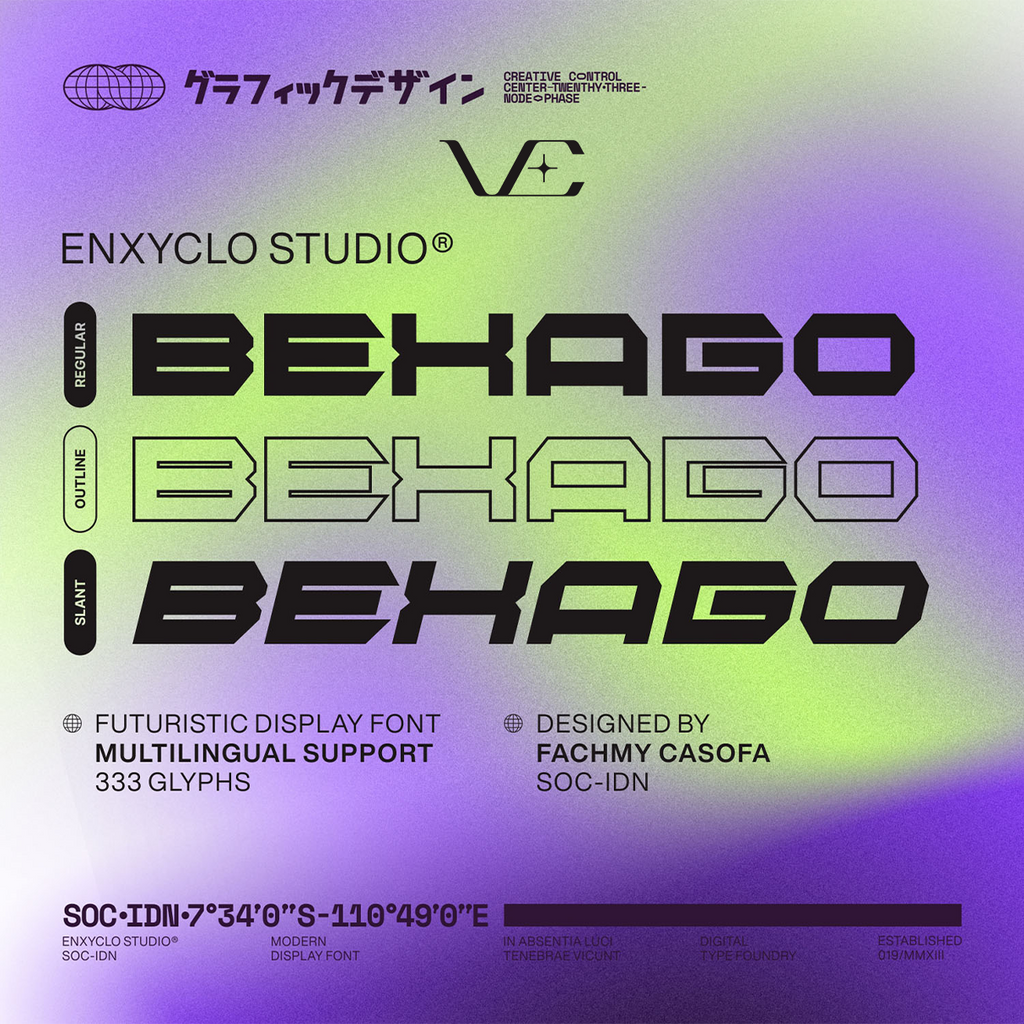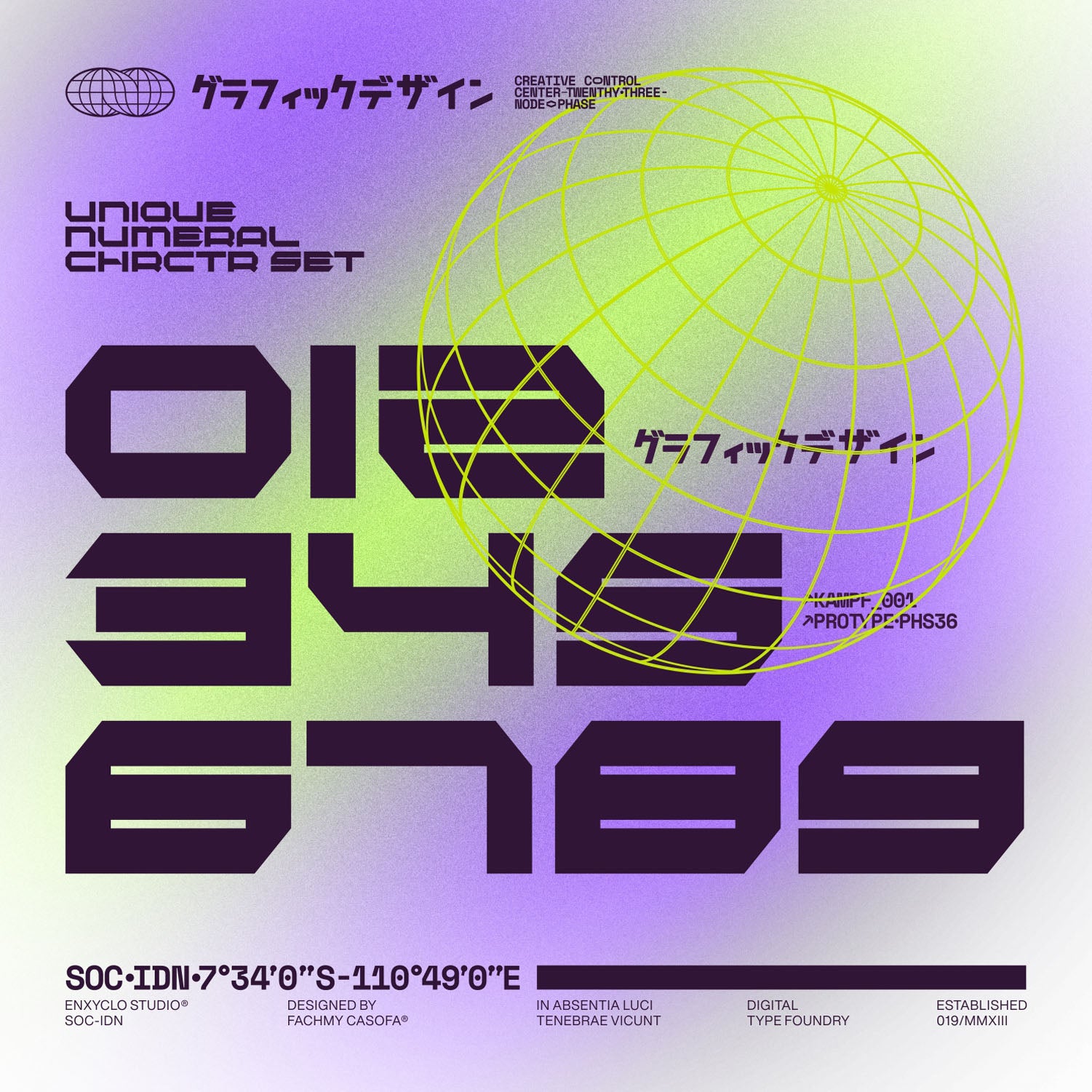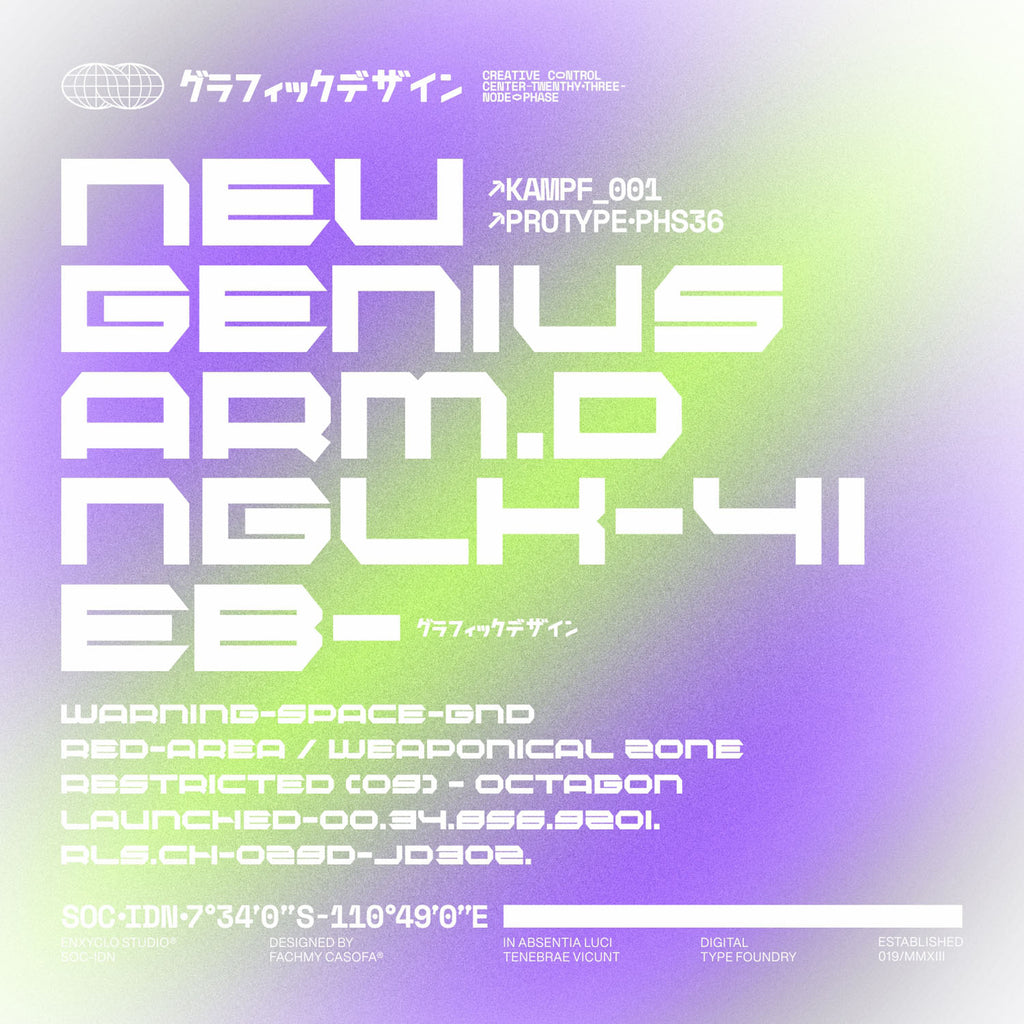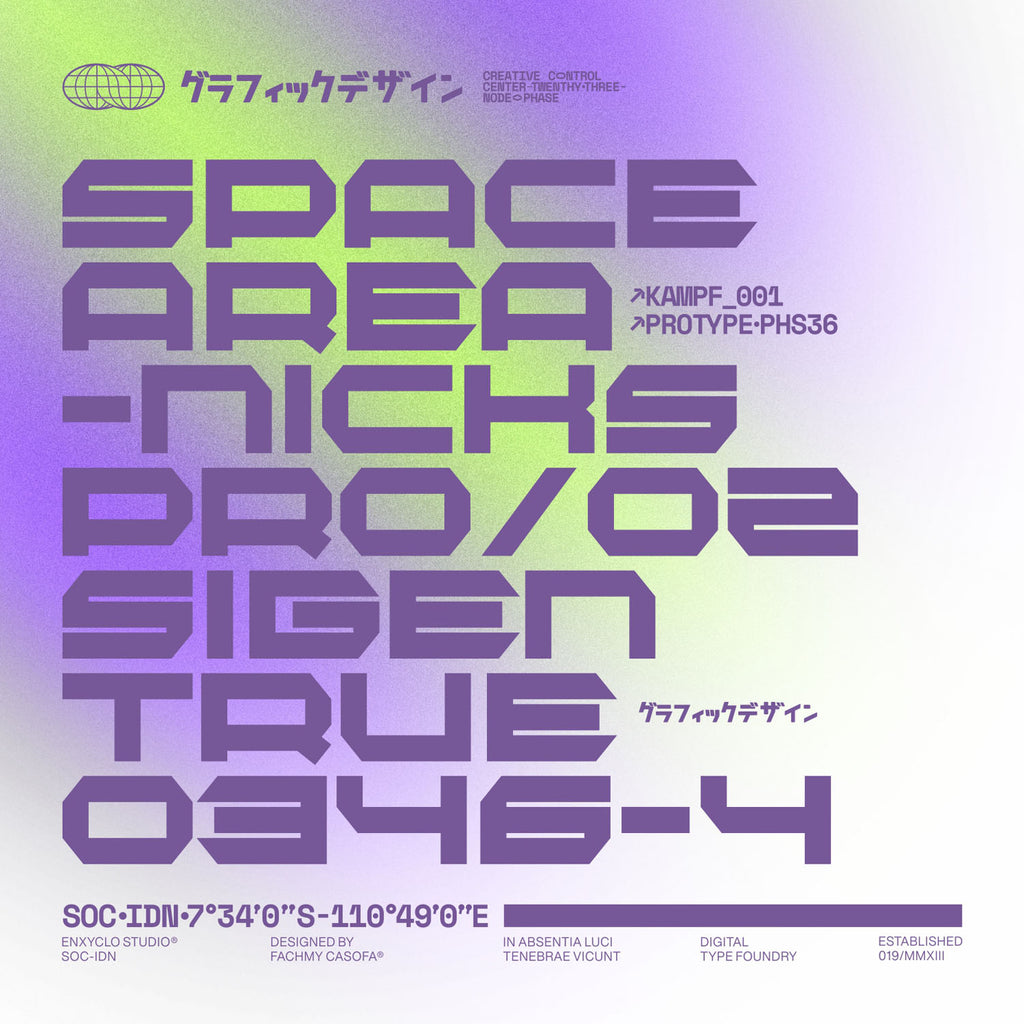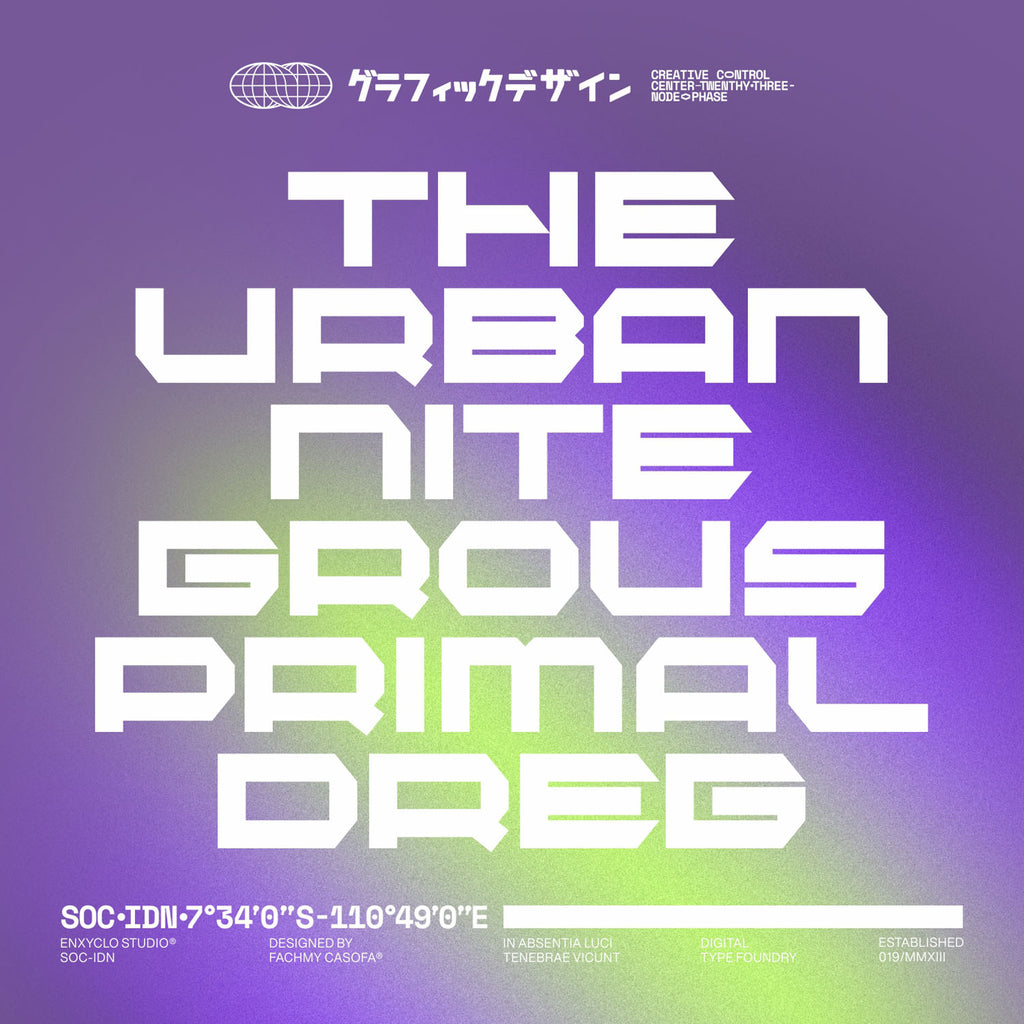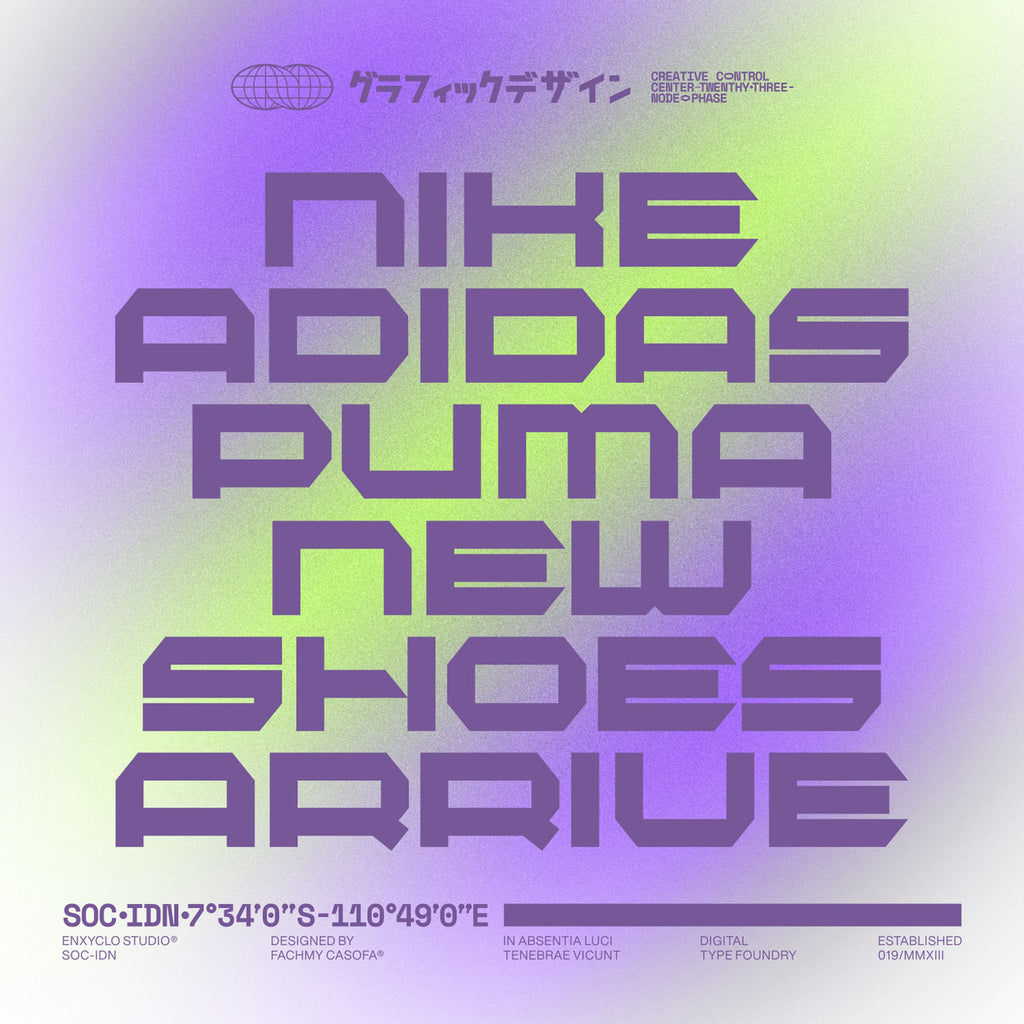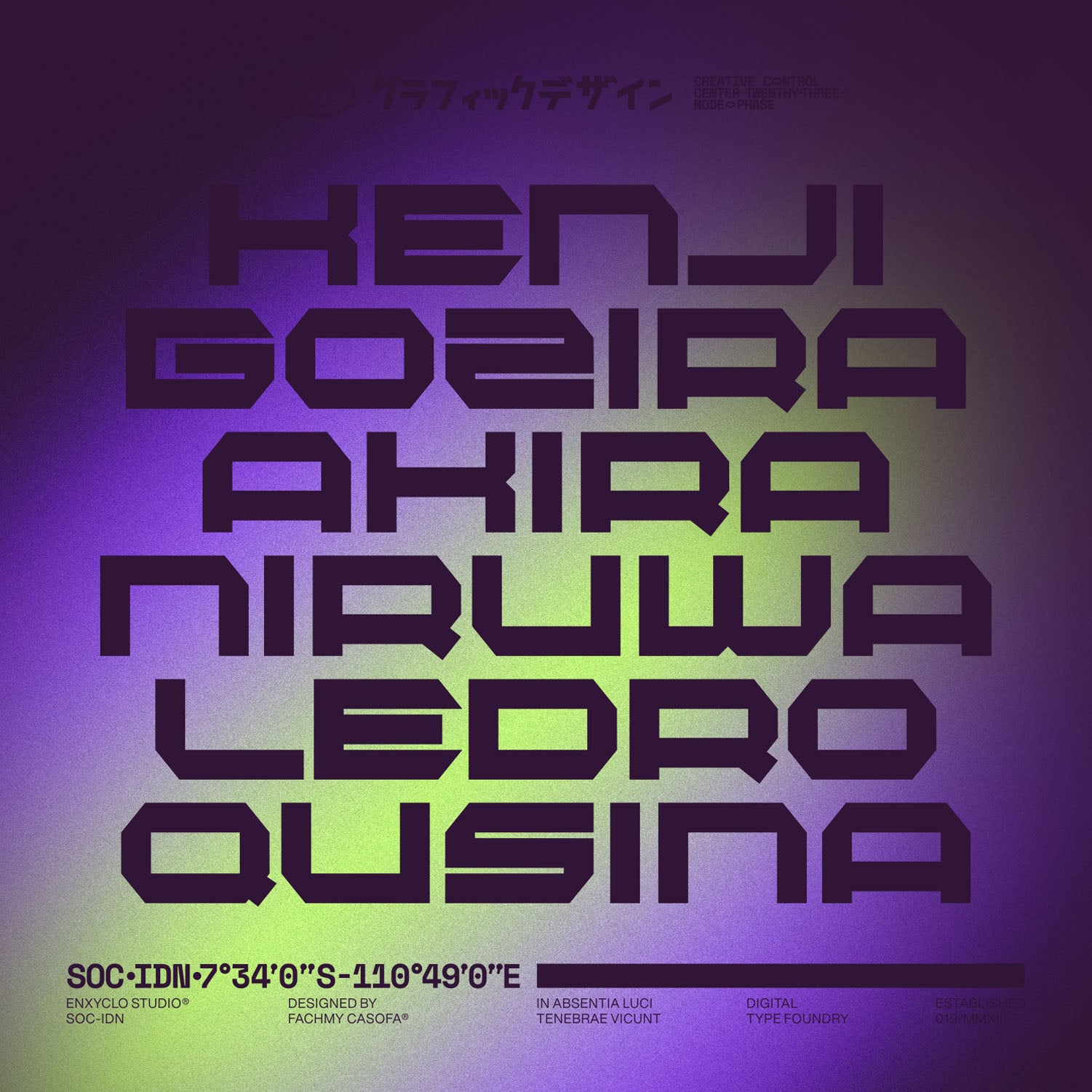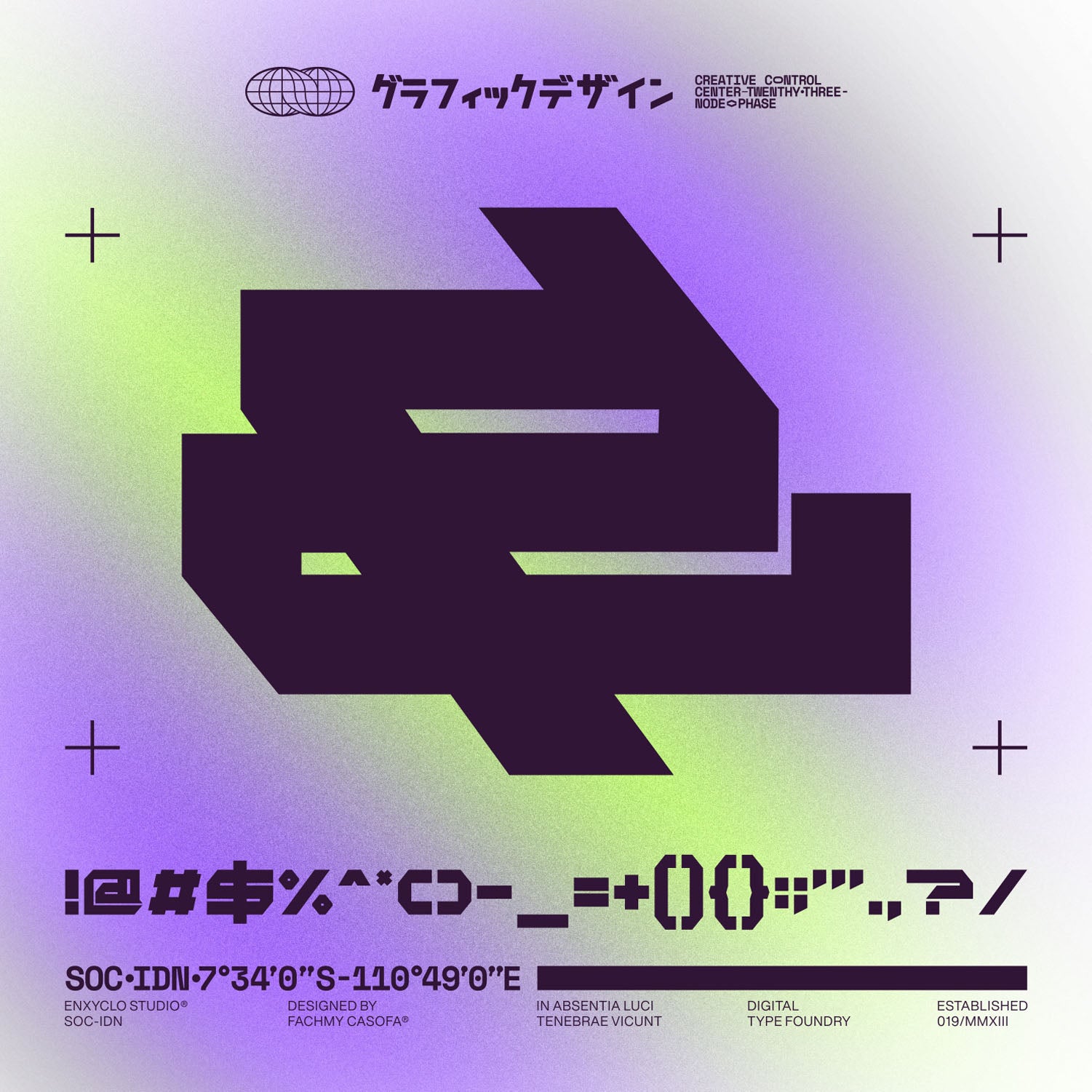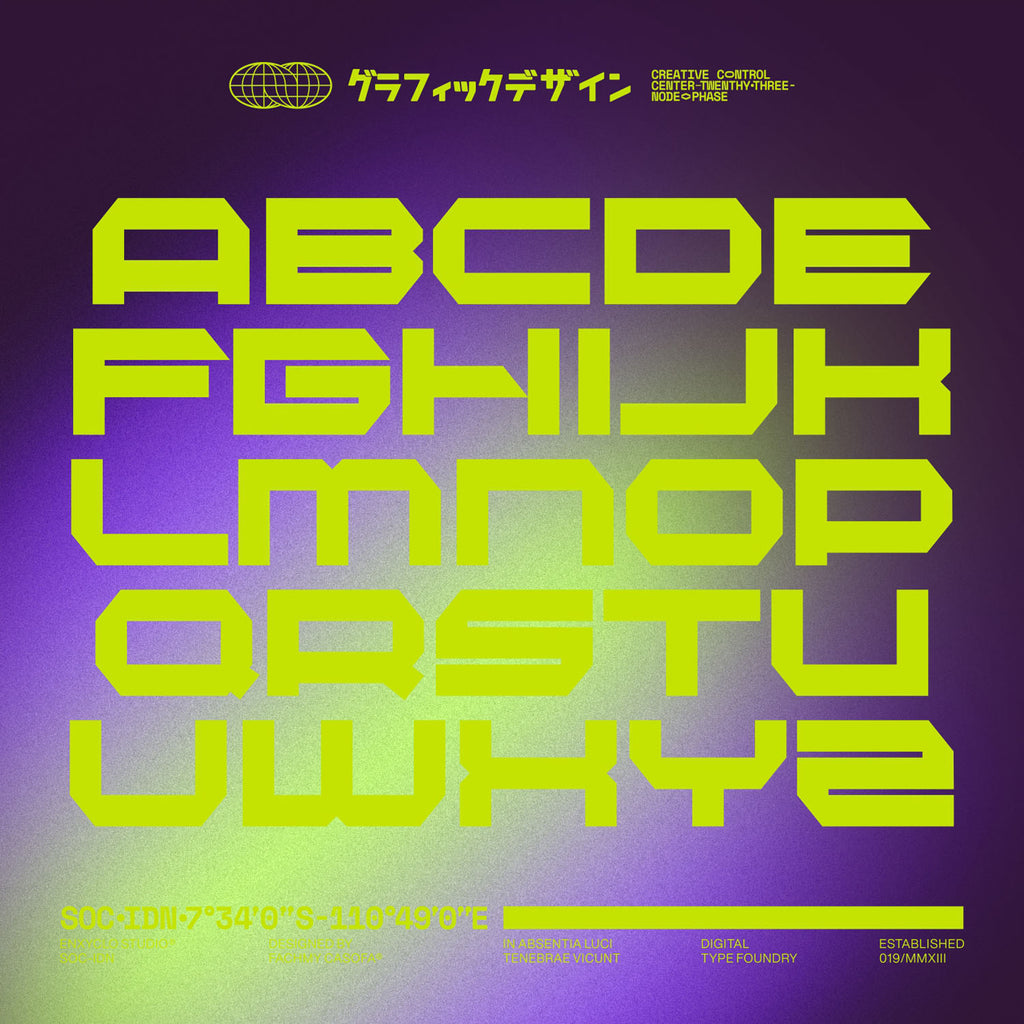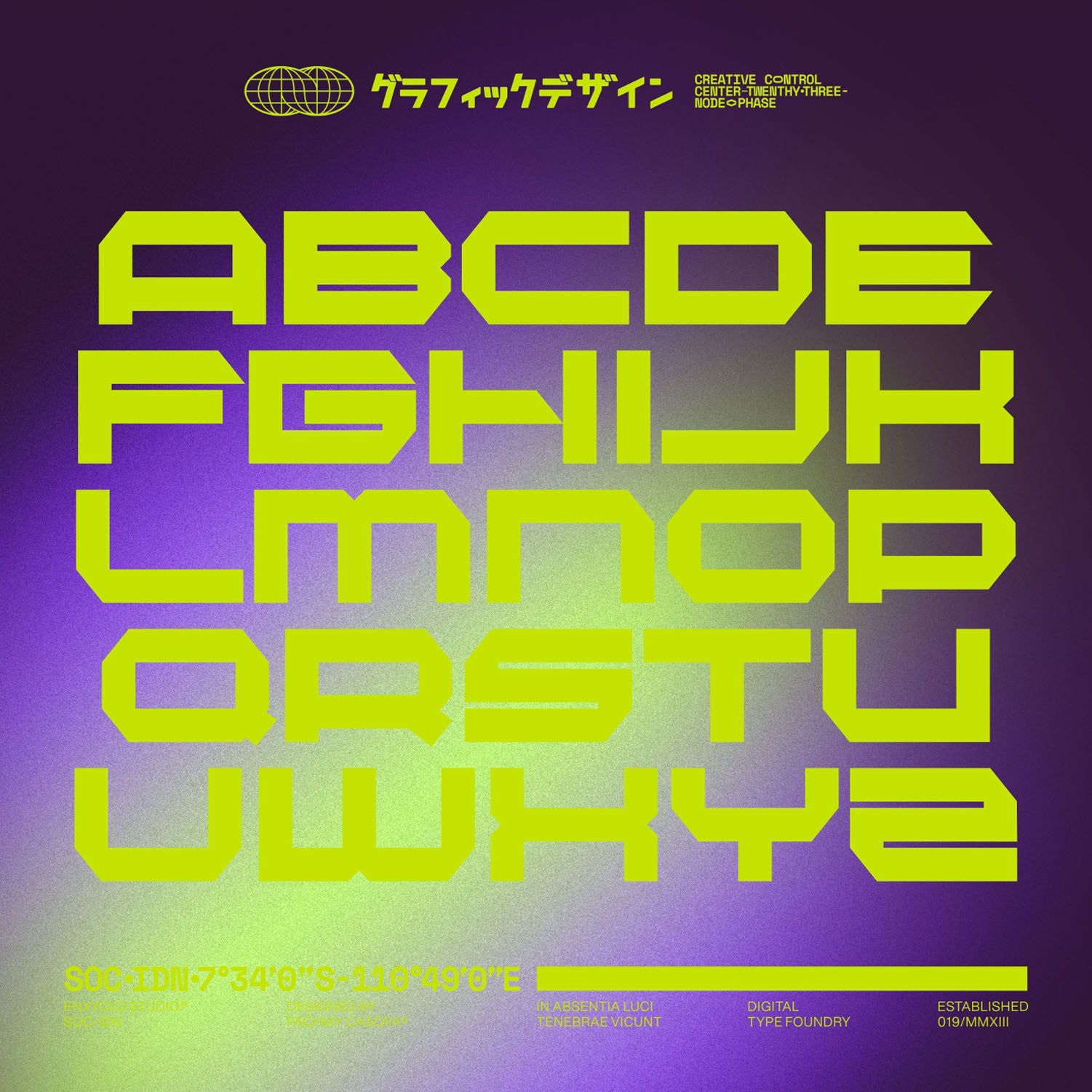
BEXAGO • Cyberpunk Typeface
A Digital, High-Tech Display Font with Sharp Futuristic Energy
BEXAGO is a cyberpunk-inspired display typeface crafted for designers who want angular structure, digital tension, and a crisp futuristic tone.
Designed for apparel design, posters, UI-inspired layouts, esports branding, album covers, and high-energy promo graphics.
Complete uppercase alphabet + numerals + punctuation
Angular geometric construction for modern display use
Ideal for tech branding, posters, digital interfaces, and bold titles
✦ Why It Works
BEXAGO creates an instant futuristic identity.
Its strong angular shapes and clean digital geometry fit seamlessly into:
Apparel & merch graphics
Tech + cyber branding systems
HUD/UI-inspired layouts
Gaming + esports identities
Posters, album covers, promo assets
Motion graphics + title sequences
BEXAGO gives you a futuristic display system crafted to sharpen hierarchy, amplify tension, and anchor your visuals in a clean, intentional digital style.